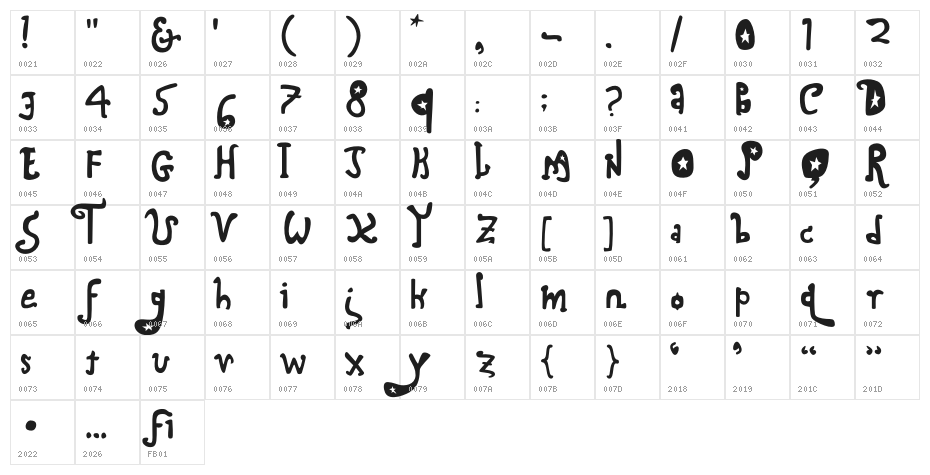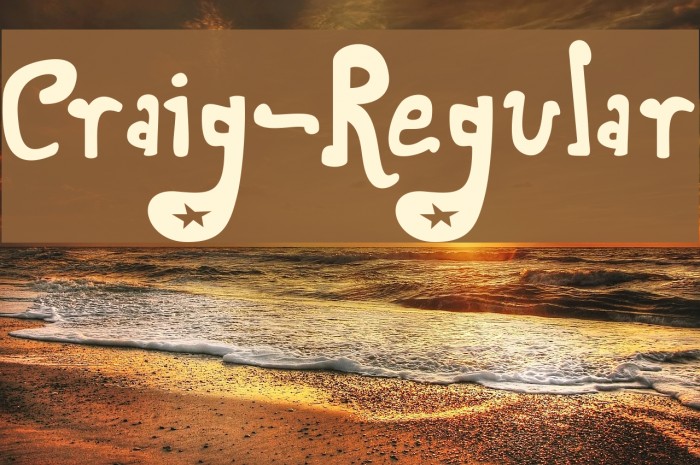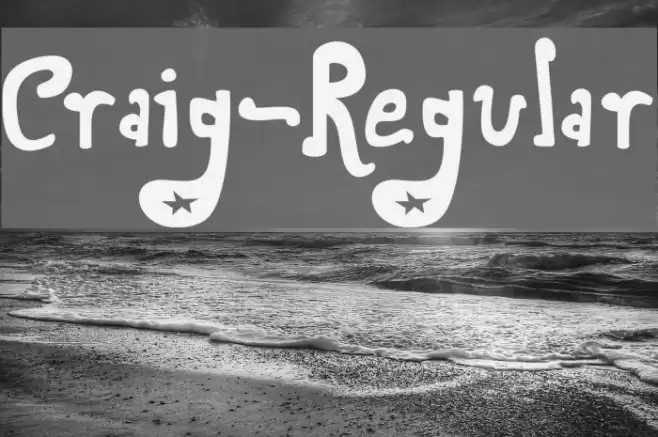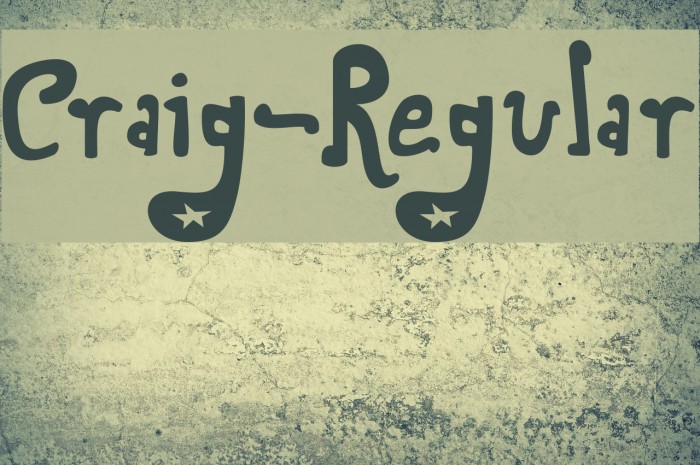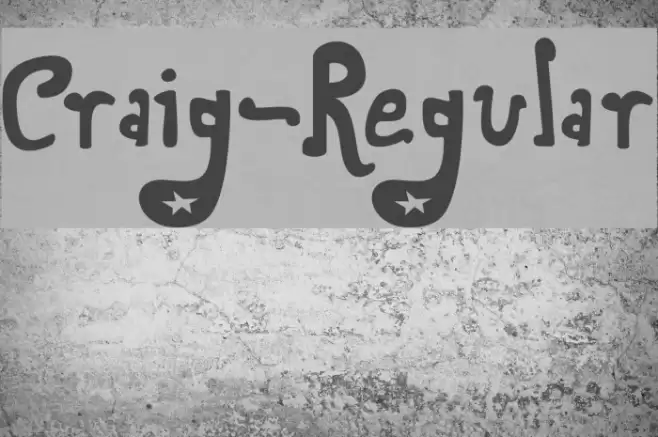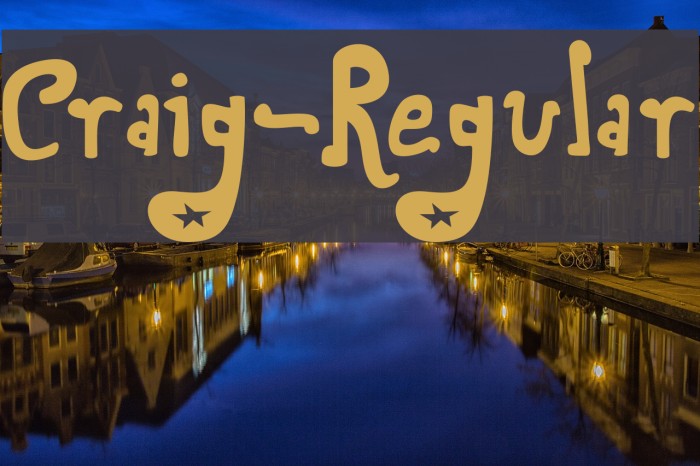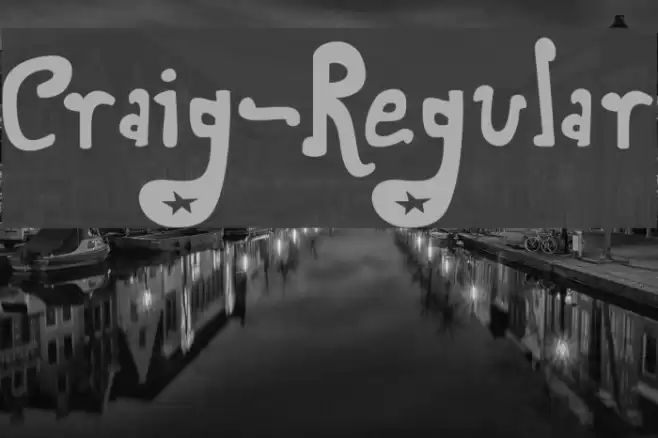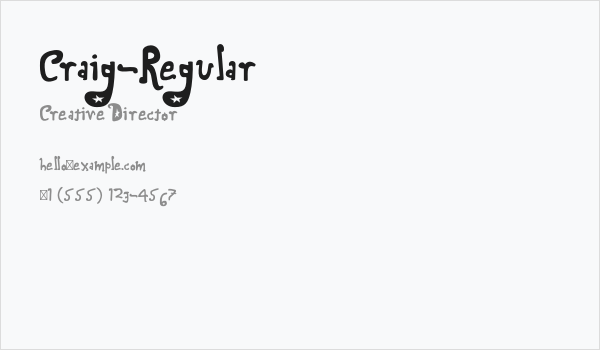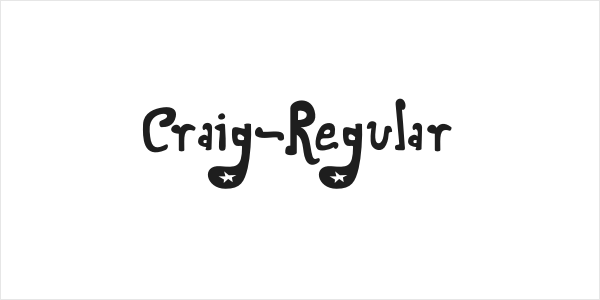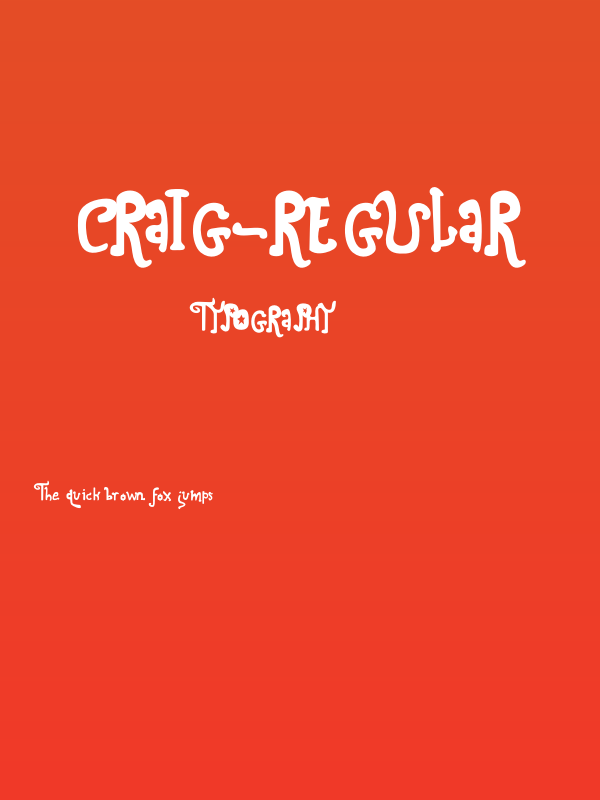
Craig-Regular Font
Craig-Regular Description
This font exhibits a playful and whimsical style, characterized by its bold and irregular letterforms. The uppercase and lowercase letters are uniquely crafted with varying stroke thickness, giving it a hand-drawn appearance. Some characters feature decorative elements, such as stars within the letters, adding to its quirky charm. The numerals and special characters maintain this playful aesthetic, making the font suitable for creative and informal applications. Its distinct style is eye-catching and memorable, perfect for projects that require a fun and engaging visual element.